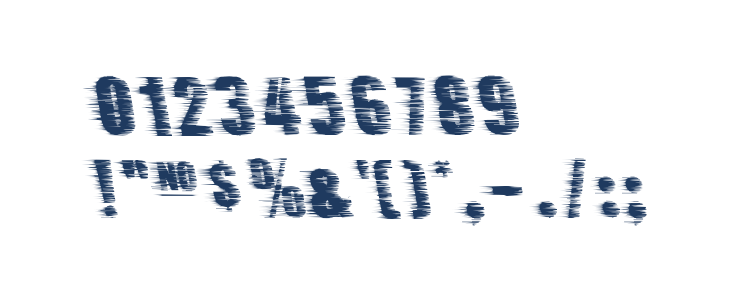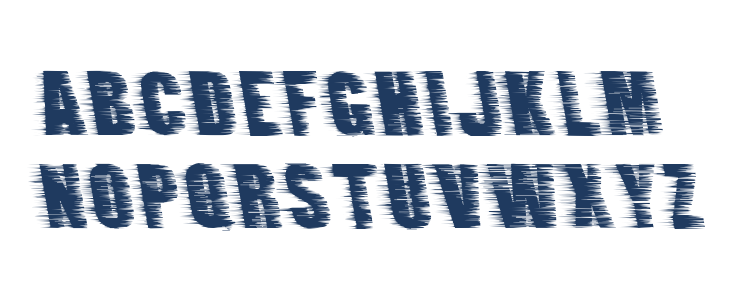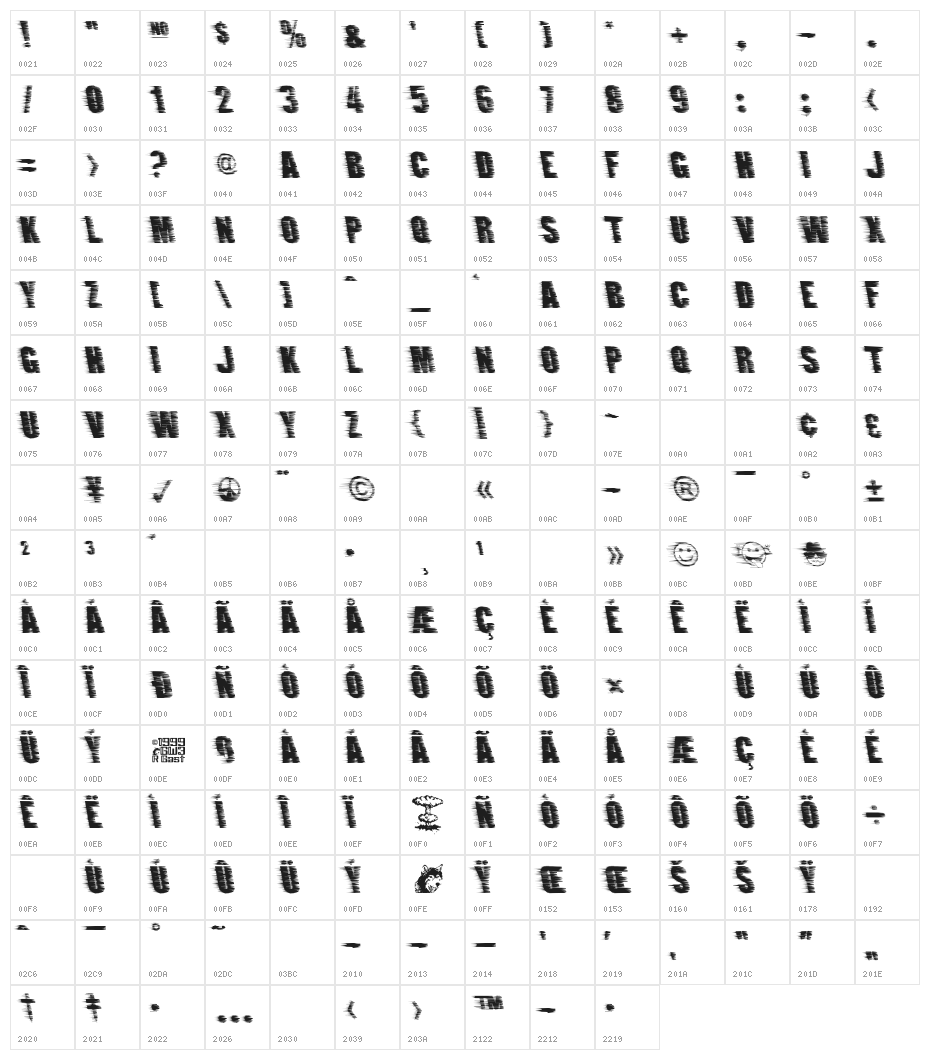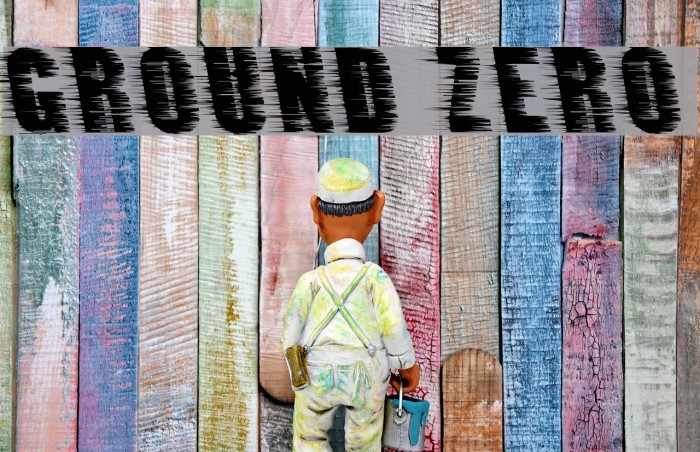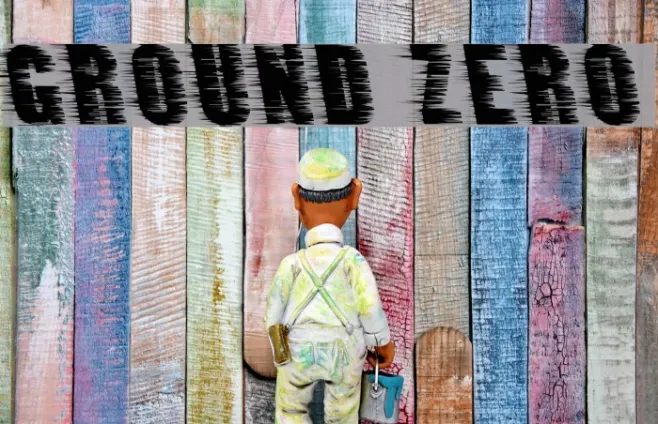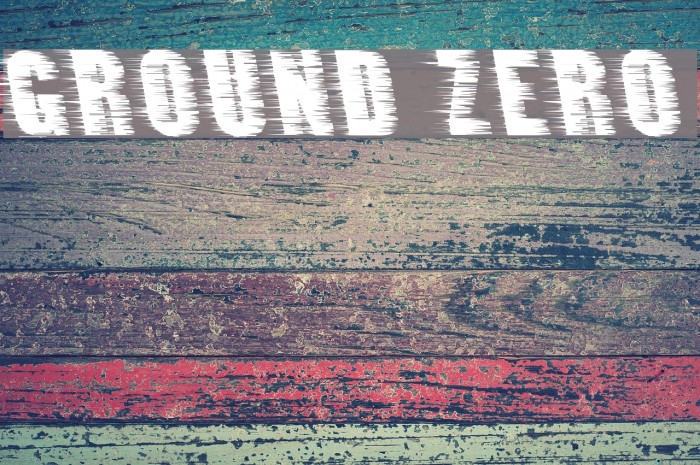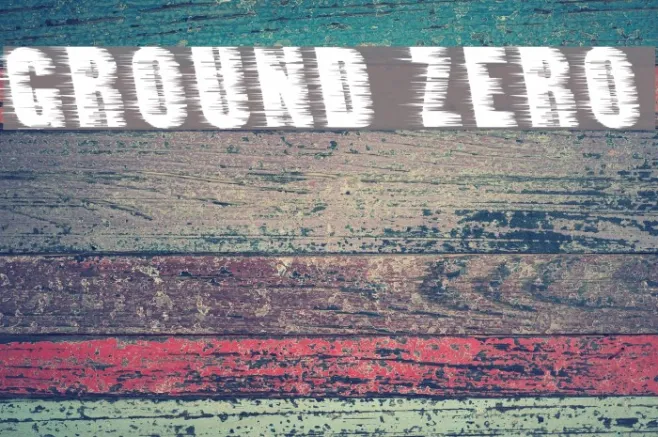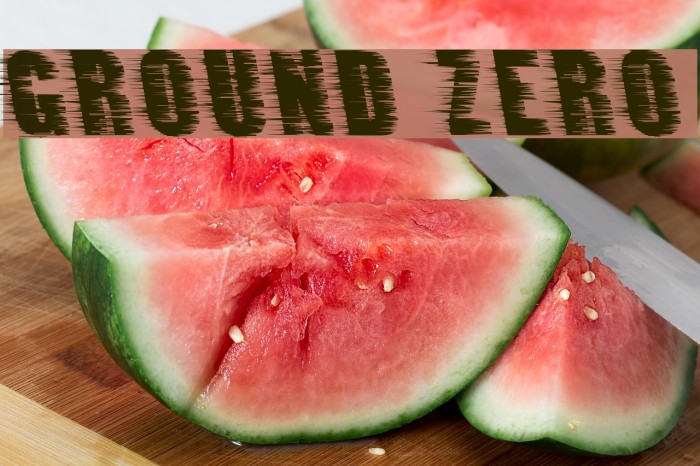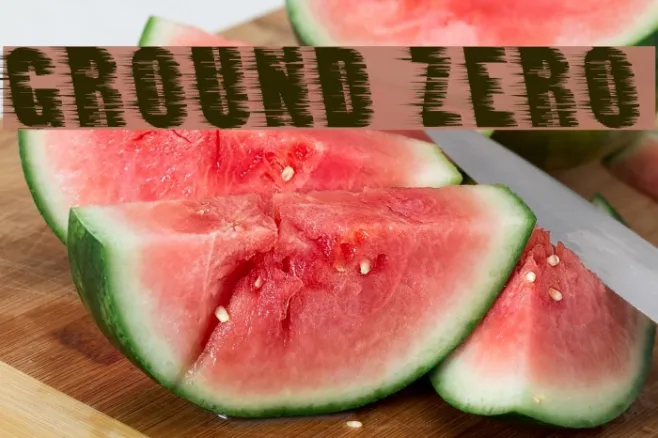
Ground Zero Font
Ground Zero Description
This font features a bold, distressed style with a unique, glitch-like effect that gives it a dynamic and edgy appearance. The characters are heavily stylized with horizontal streaks that create a sense of movement and urgency. This design is reminiscent of digital distortion, making it ideal for projects that require a modern, tech-inspired aesthetic. The uppercase and lowercase letters maintain consistent proportions, while the numbers and special characters are equally bold and impactful. The overall look is striking and attention-grabbing, perfect for making a statement.
GROUND-ZERO UPPERCASE
GROUND-ZERO LOWERCASE
GROUND-ZERO OTHER CHARS
| Proposed Projects | Perfect for digital art, video game graphics, tech-themed posters, and edgy branding projects. |